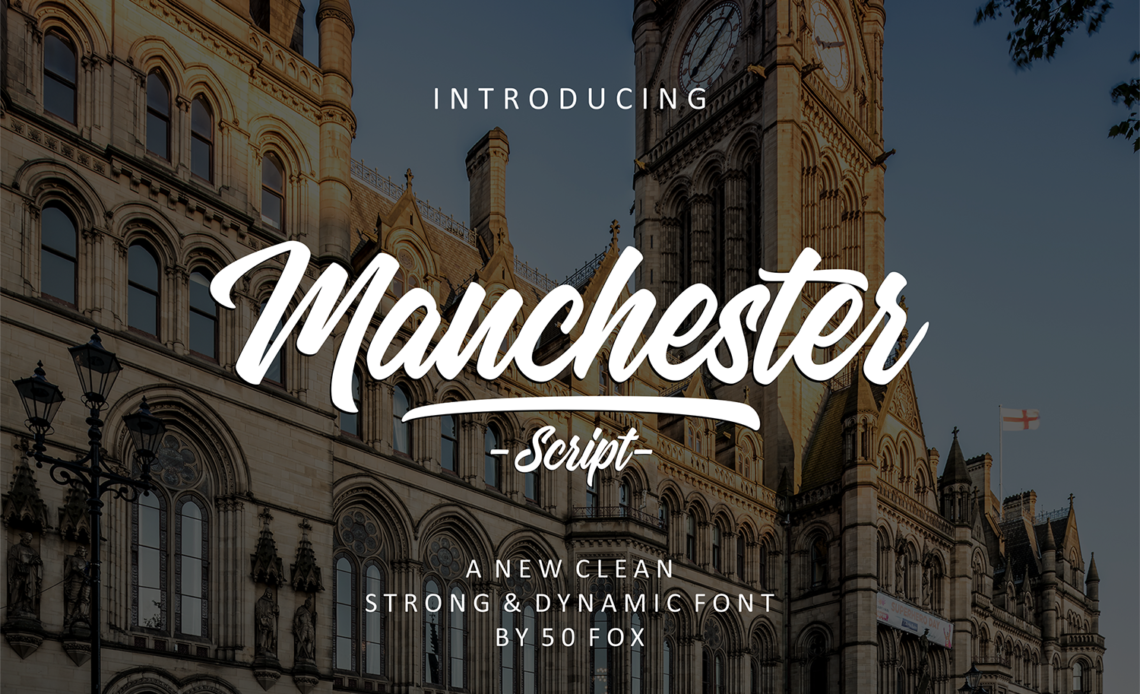
Dive into the enchanting realm of Manchester Script, a captivating font that paints words with an air of charm and effortless grace. Born from the creative mind of 50Fox, this hand-lettered masterpiece invites you to embark on a typographic adventure where elegance meets authenticity.
Manchester Script's personality shines through its graceful curves and flowing lines. Each letter dances across the page, narrating a captivating visual story that leaves a lasting impression on the reader. Its impeccable design achieves a harmonious balance between readability and artistic flair, making it the perfect choice for captivating designs that demand attention.
With Manchester Script, you're not just downloading a font; you're welcoming a versatile companion into your creative arsenal. Its multiple variations and swash bonuses empower you to experiment with different styles, ensuring your designs never fall into a creative rut. From handwritten notes that exude warmth and intimacy to social media posts that pop with personality, Manchester Script effortlessly adapts to your every need.
Let your imagination soar as you explore the infinite possibilities of Manchester Script. Design wedding invitations that evoke a sense of timeless romance, craft logos that radiate sophistication, or create social media graphics that dance with playful charm. The possibilities are endless, and the results are always captivating.
Embrace the beauty of Manchester Script and elevate your designs to new heights. Whether you're a seasoned designer or just starting your typographic journey, this font will inspire you to create designs that speak volumes.
With Manchester Script, the power of expression lies at your fingertips. Dive into the world of this enchanting font and experience the joy of crafting designs that leave an unforgettable mark.